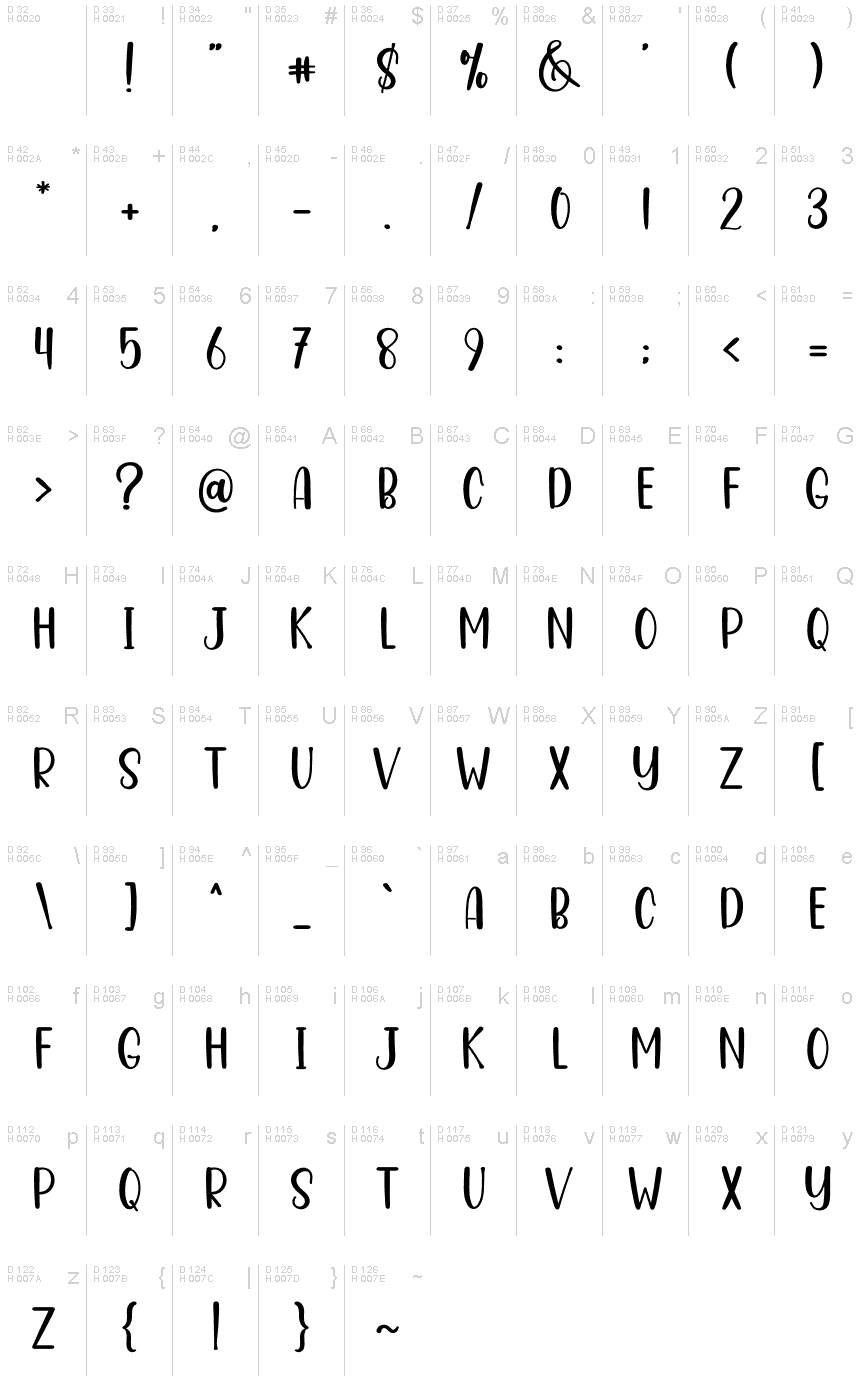
Happiness
Happiness, a narrow handwritten font created by Inermedia Studio, has a lighthearted cartoon touch. Perfect for creating fun and playful designs such as children's book illustrations, quirky logos, and greeting cards.